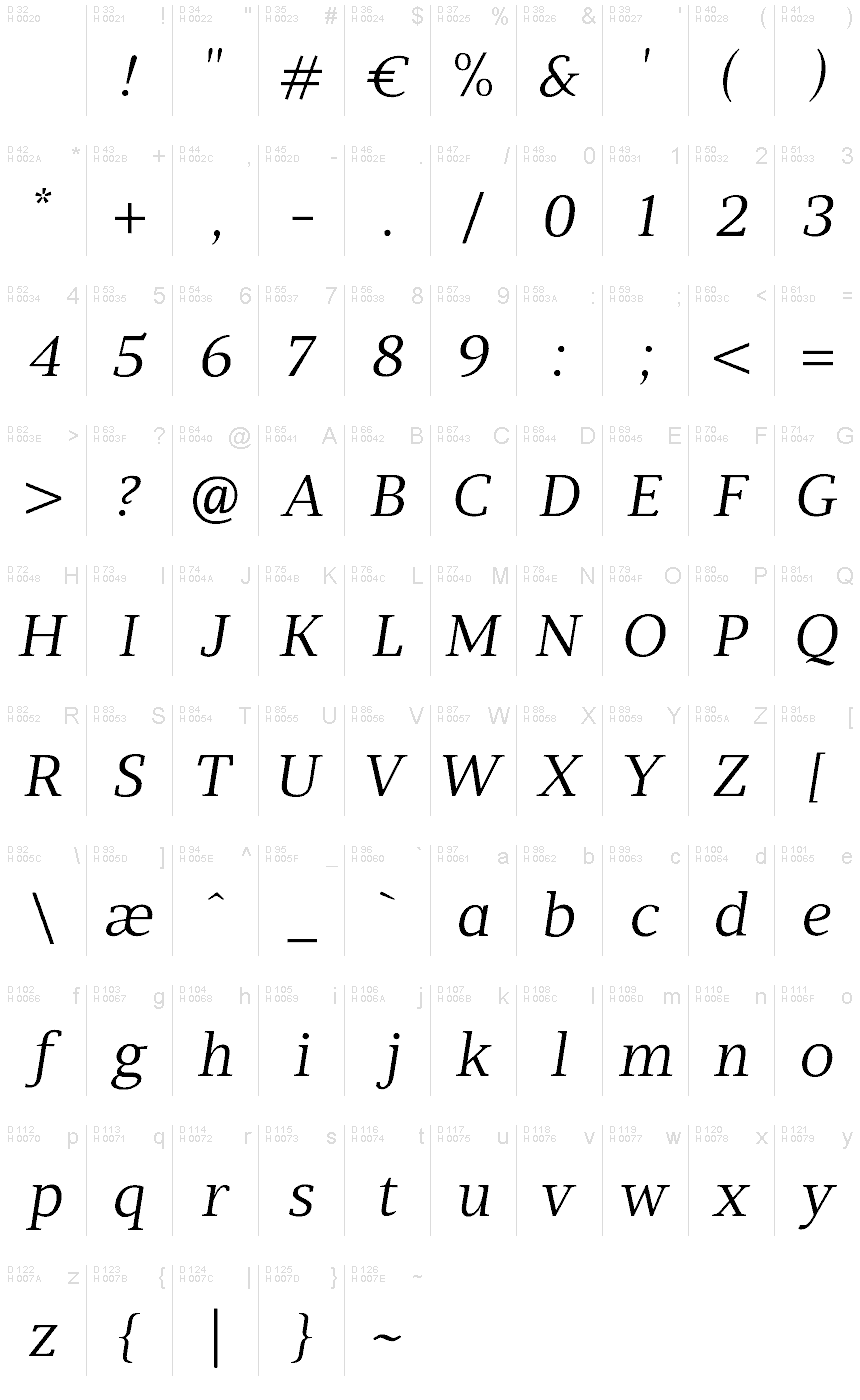
Tess-Italic
Let us introduce you to Tess Italic, a serif font designed and shared by Naan Type Studio that offers all the essential design tools needed to create a memorable branding for your products.
It is a versatile typeface that easily finds a place in multiple projects and brings to every piece a distinct retro appeal. The Tess 2 Italic font with its original characters can be combined with both serif and sans serif fonts to generate more complex designs that would look wonderful used in posters, branding identity projects, labels, invitations, greeting cards, and others.
In short, Tess 2 Italic font is an easy to use tool that combines modern elements with retro designs in a unique and balanced way.
It is a versatile typeface that easily finds a place in multiple projects and brings to every piece a distinct retro appeal. The Tess 2 Italic font with its original characters can be combined with both serif and sans serif fonts to generate more complex designs that would look wonderful used in posters, branding identity projects, labels, invitations, greeting cards, and others.
In short, Tess 2 Italic font is an easy to use tool that combines modern elements with retro designs in a unique and balanced way.